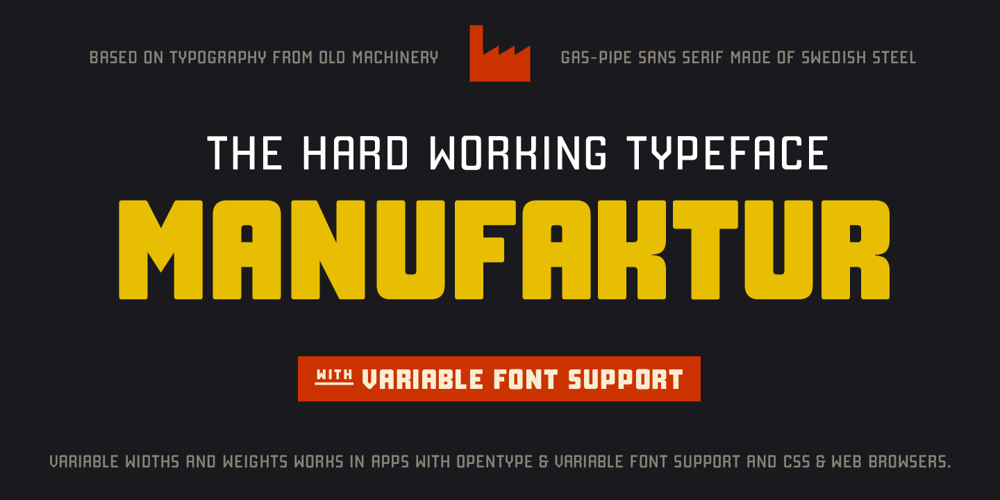
Manufaktur
Manufaktur font
Manufaktur Font Family was designed by Daniel Feldt and published by Great Scott. Manufaktur contains 30 styles and family package options. MANUFAKTUR is a gas-pipe sans. A typeface influenced by an cast iron sign on an old Swedish industrial machine. The simple curves of the characters suited well for an 21st century update and the new and modern MANUFAKTUR is now a variable typeface with thousands of combinations of width and weight. MANUFAKTUR comes with stylistic alternates (smaller glyphs with underline) and small caps. The small caps also works as lowercase glyphs by default. With an OpenType-enabled app – or your website – you can control the width and weight of the typeface via a slider or with code. VARIABLE FONT SUPPORT: Currently Adobe only supports variable fonts in Photoshop and Illustrator. InDesign are still waiting on variable font support. This hardworking sans serif is perfect for display use, signage, poster, prints, editorial use, branding, logos, magazines, films and lots more. The variable weight and width makes MANUFAKTUR very versatile and flexible. If variable fonts isn’t your bag MANUFAKTUR also comes predetermined weights and widths as a traditional font.